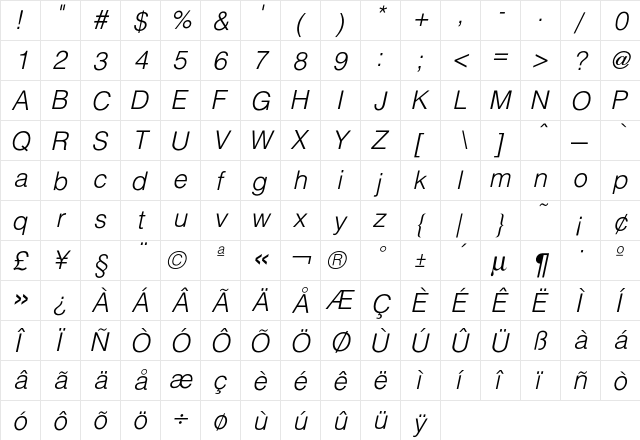
Hallmarke LightOblique
Design Context for Hallmarke Typeface
Hallmarke takes a measured approach to typography — its balanced proportions and neutral character make it a reliable workhorse for both digital and print work. The dynamic lean of this cut emphasises speed and emphasis in any layout. Its slender proportions lend an understated elegance to any composition.
Pro Tip: Use Hallmarke for emphasis, pull quotes, and subheadings where its slanted energy can add rhythm to the layout.